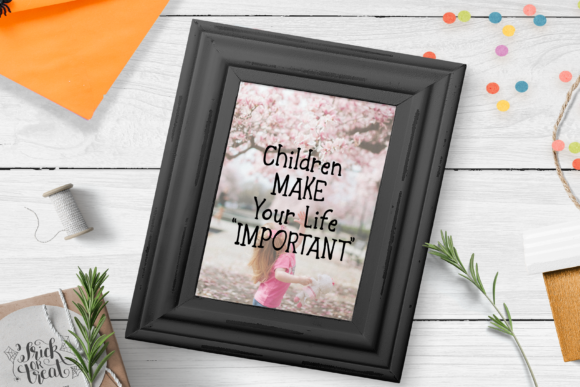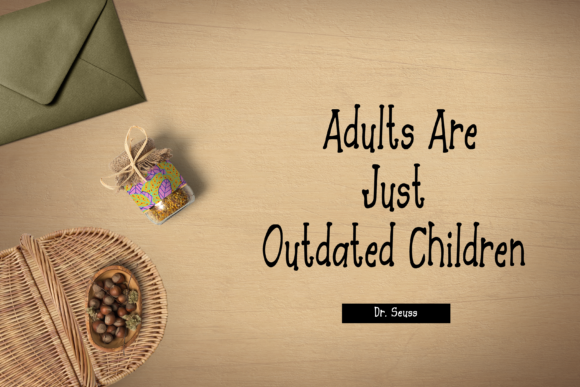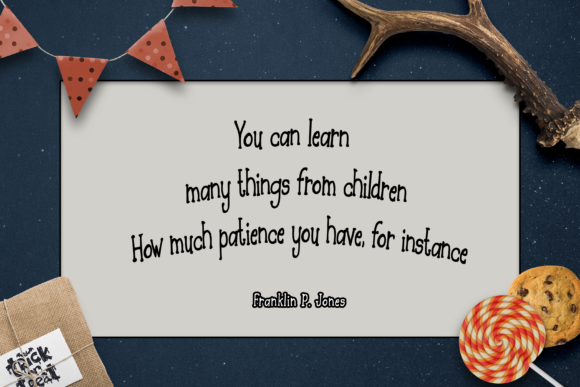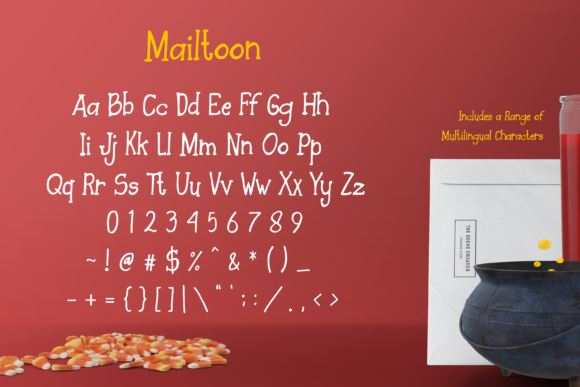
Introduction to Mailtoon Font
Have you ever been working on a design project and suddenly, a burst of creativity hits you? You envision a colorful, playful, and youthful vibe that’s sure to capture the attention of your audience. This is exactly what the Mailtoon Font can do for you.
As a designer, you’re always on the lookout for the perfect font to elevate your creative project. And when you stumble upon the Mailtoon Font, you’ll know you’ve found a treasure trove of inspiration. With its high-quality design and free download option, this font is an invaluable resource for any designer looking to add a touch of whimsy to their work.
One of the standout features of the Mailtoon Font is its transparent background, allowing you to easily integrate it into any design without distractions. Whether you’re working on a branding project, a social media campaign, or a children’s book, this font is sure to bring a smile to your face and a touch of magic to your design.
Key Features of Mailtoon Font
- High-quality design resource with a wide range of creative possibilities for your project.
- Features a transparent background, allowing for seamless integration with any design element.
- Includes a range of characters, including letters, numbers, and symbols, making it suitable for various creative projects.
- Available in a single size, with a high resolution of 300 DPI, ensuring crisp and clear typography.
- Unique characteristics include a playful and modern design aesthetic, making it perfect for branding, logos, and other design applications.
Honest Review: Mailtoon Font
I recently stumbled upon the Mailtoon Font while searching for a free download to enhance my design project. As a designer, I was excited to explore this design resource and see if it meets my expectations.
One thing that works well about the Mailtoon Font is its wide range of characters and symbols, making it perfect for creative projects that require a lot of detail. The font also has a transparent background, which is a huge plus for designers who want to easily combine it with other graphics or backgrounds.
Here are some features that I like about the Mailtoon Font:
- Transparent background for easy editing
- Wide range of characters and symbols
However, I did encounter some limitations with the Mailtoon Font:
- Some characters may not display properly on certain devices
- Limited font styles available
Overall, I’m impressed with the Mailtoon Font’s potential, but it needs some improvement to become a top-notch design resource. With a bit more development, I think it could be a game-changer for designers looking for a free, high-quality font.
Tips for Getting the Most Out of Mailtoon Font
Use the Mailtoon Font with a transparent background to create a clean and modern design. Experiment with different font styles and combinations to create a unique look. The Mailtoon Font is a free download, making it a great resource for designers on a budget.
The Mailtoon Font is perfect for creating graphics for social media, presentations, and other creative projects. It’s also great for creating custom logos, icons, and other visual elements. With its high-quality design and transparent background, the Mailtoon Font is a versatile design resource for any project.
Alternatives to Mailtoon Font
Aesthetic Sans
Aesthetic Sans is a high-quality, sans-serif font perfect for designers working on creative projects that require a clean and modern look. It’s available for free download and features a transparent background, making it ideal for use on any design resource. When to use: Aesthetic Sans is suitable for digital design, branding, and marketing materials. It compares to Mailtoon Font in that both fonts offer a clean aesthetic, but Aesthetic Sans has a more modern and sleek feel.
Q: Does the Mailtoon Font have a transparent background?
Yes, the Mailtoon Font has a transparent background, making it easy to use in a variety of design contexts. This feature allows you to place the font over images or other design elements without worrying about background interference.